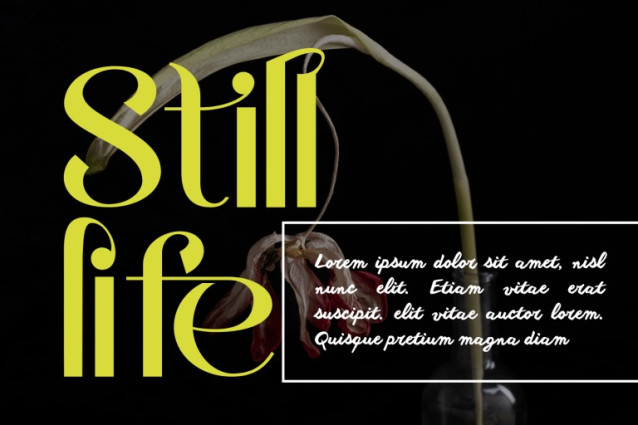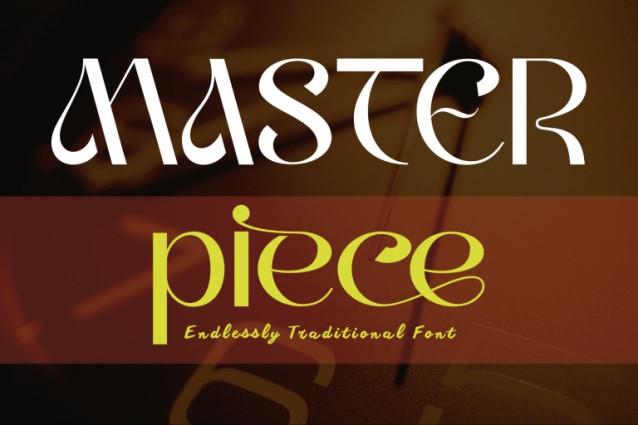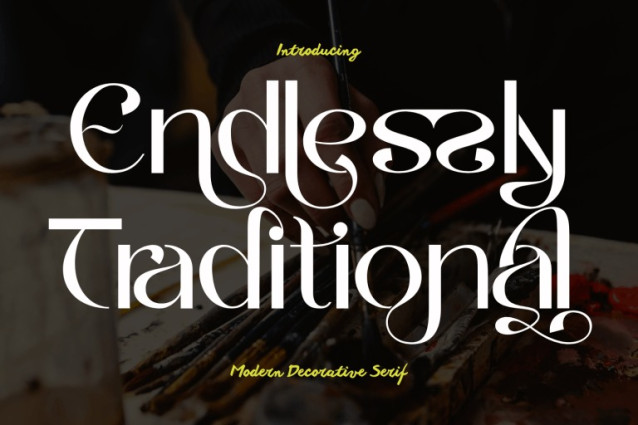
Endlessly Traditional Font
Endlessly Traditional – Ligature Font – A High-Contrast Ornamental Sans-Serif Font, a refined display sans-serif font that combines timeless elegance with bold ornamental flair. Each character is crafted with dramatic contrast, extended curves, and stylish swashes, bringing a sophisticated yet expressive personality to your typography. This font seamlessly balances tradition and modernity, making it an excellent choice for luxury branding, editorial design, wedding invitations, packaging, and creative campaigns that demand both impact and grace.
🔤Font Features:
Uppercase & Lowercase Letters
~100 Elegant Ligatures
Accented Characters for Multilingual Support
Alternates and Stylish Swashes
🔤About 100 ligatures combined with Stylistic Alternates Font: